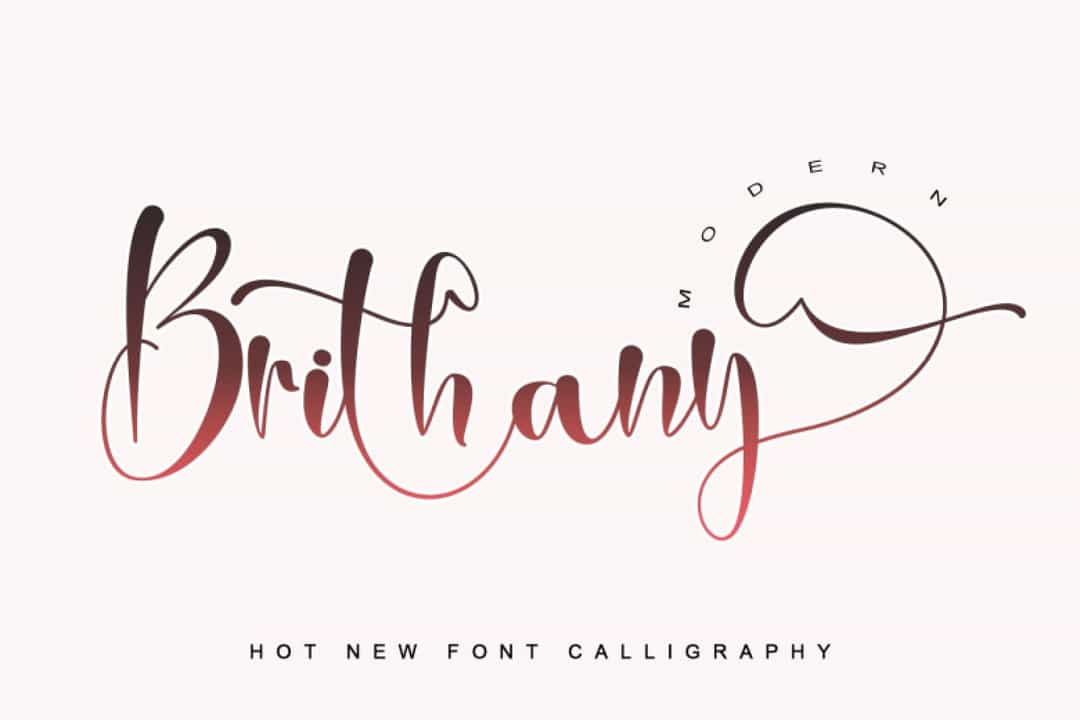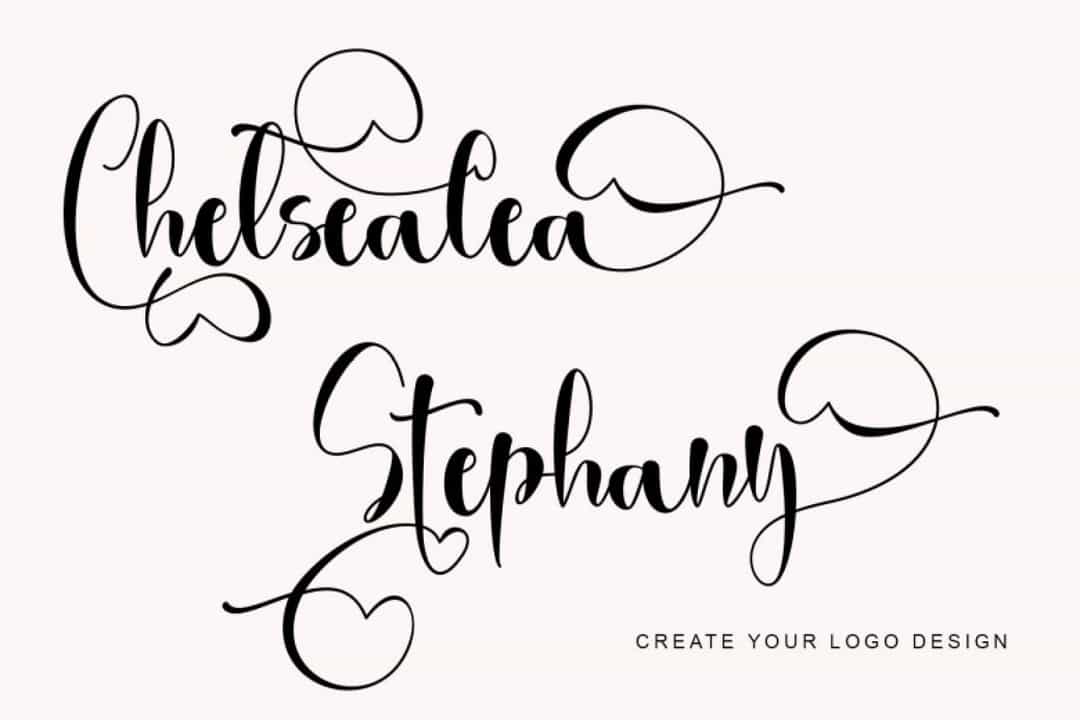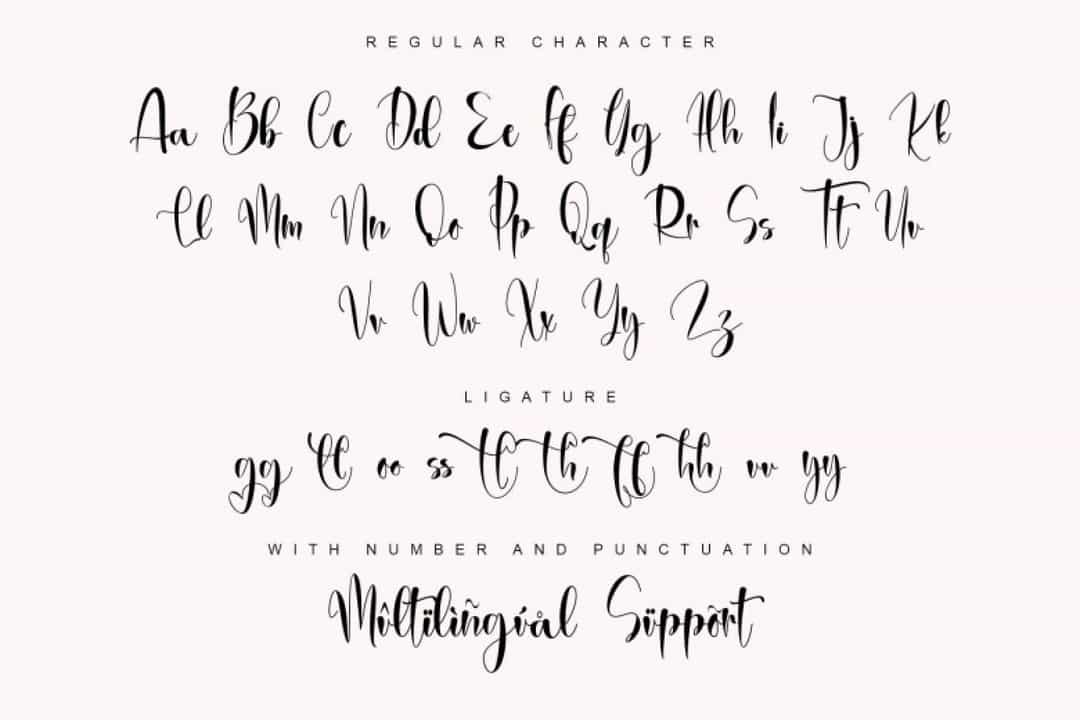
Brithany Calligraphy Font is an elegant script typeface with plenty of style and sophistication, perfect for Logo and thank you cards as well as greeting cards, wedding invitations, business cards and any design needing a handwritten touch.